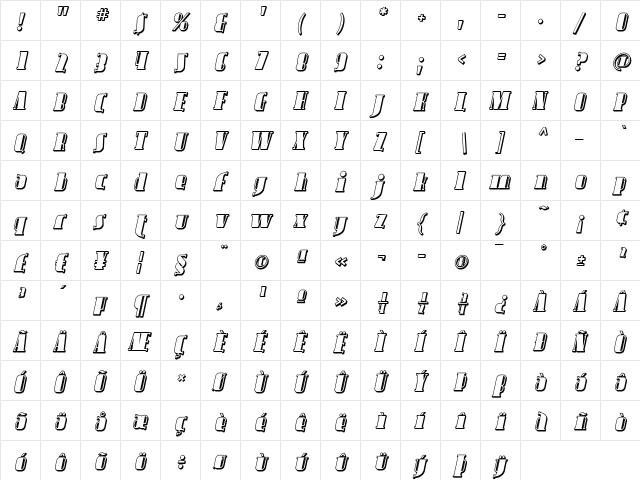
Avondale Shaded Italic
| Designer | Derek Vogelpohl |
Design Context for Avondale Shaded Typeface
Avondale Shaded offers clean, dependable letterforms without strong stylistic allegiance, making it a practical choice for designers who need flexibility. The dynamic lean of this cut emphasises speed and emphasis in any layout.